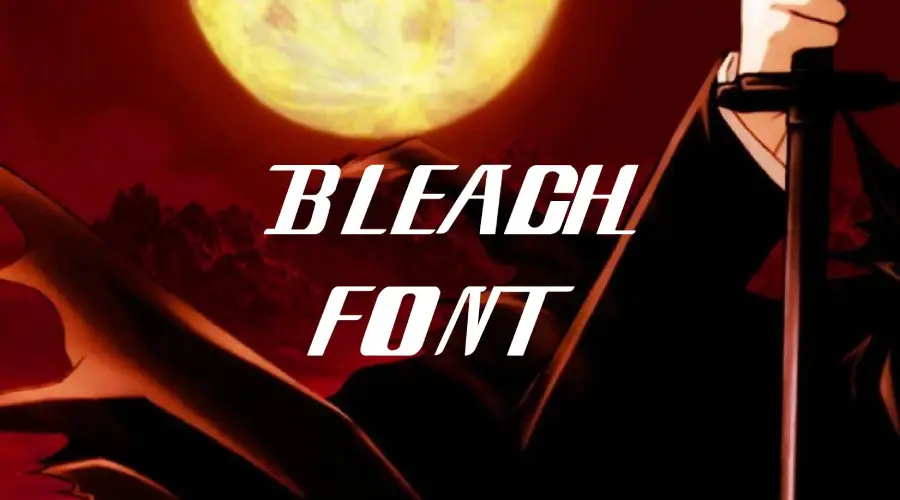
If you are a fan of manga and anime, you might be familiar with Bleach, a Japanese manga series by Tite Kubo. The series follows the adventures of Ichigo Kurosaki, who becomes a Soul Reaper and has to protect humans from evil spirits. The series has been adapted into an anime series, movies, video games, and more.
What Font Does Bleach Use
One of the distinctive features of the series is its logo, which appears on the cover artwork of the manga volumes and other media. The logo uses a Gothic typeface similar to a font called Bleach. Danilo Belardinelli created this font.
It is a custom-made replica of the Bleach font that mirrors the original’s unique characteristics. It captures the essence of the logo, replicating its sharp, angular lines and bold, assertive strokes. The replica is a testament to the original, maintaining its unique style while offering a fresh perspective.
Where to Use The Font
The Bleach font, with its distinctive style, is perfect for many uses. It’s an excellent choice for graphic designs, particularly those related to anime or manga themes. Its bold, assertive style makes it ideal for logos, headers, and titles, where it can make a strong visual impact.
Concluding The Story
In conclusion, the Bleach font is a testament to the power of design. It is a symbol of a beloved series and a tool for creators to express themselves. This font offers a variety of options for users, whether they’re designers looking for a new font for their project, anime fans seeking a tribute font, or business owners looking for a logo. So why not let it tell your story?